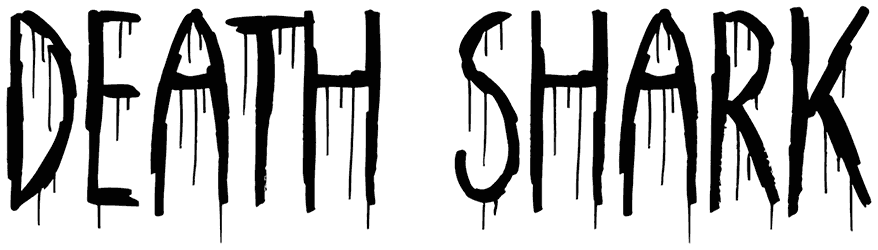
Death Shark Font
Death Shark font doesn’t just look scary; it looks like it crawled out of a midnight movie poster with unfinished business. The jagged horror shapes, rough edges, and aggressive rhythm give every word a bite, which is exactly what you want when clean typography feels way too polite for the job.
You can throw this death font on slasher film titles, haunted house flyers, metal band covers, Halloween merch, creepy gaming logos, or shark-themed event posters that need instant danger. Pair it with dark ocean textures, blood-red accents, or scratched metal backgrounds, and suddenly your layout starts making threats.